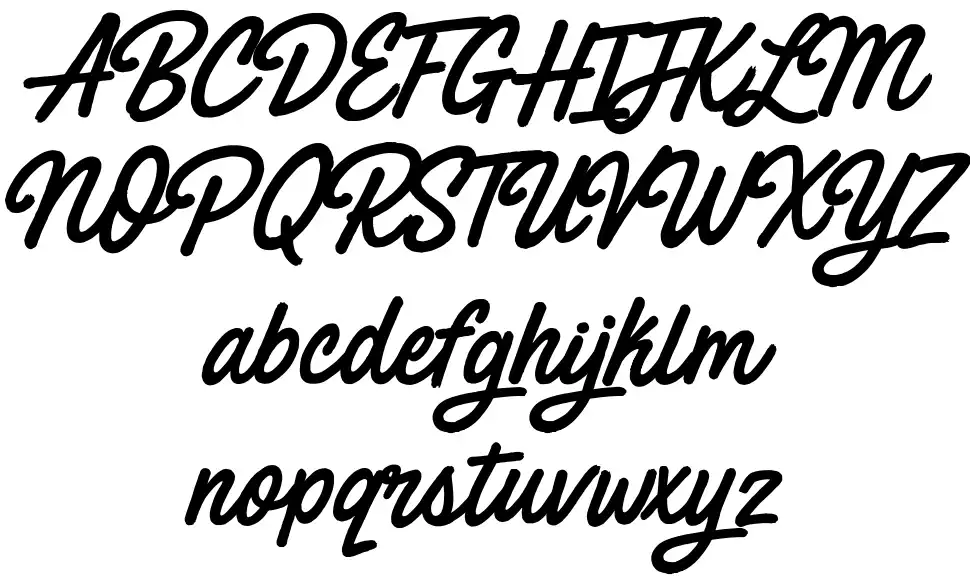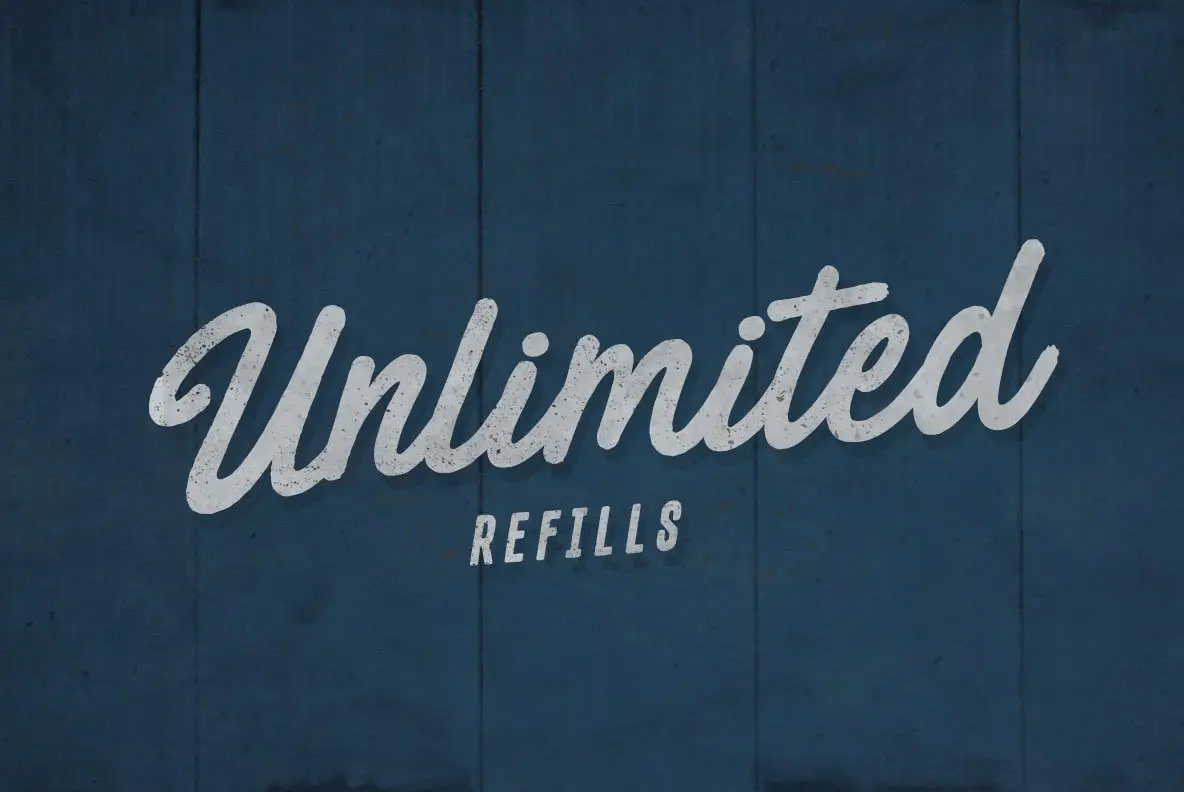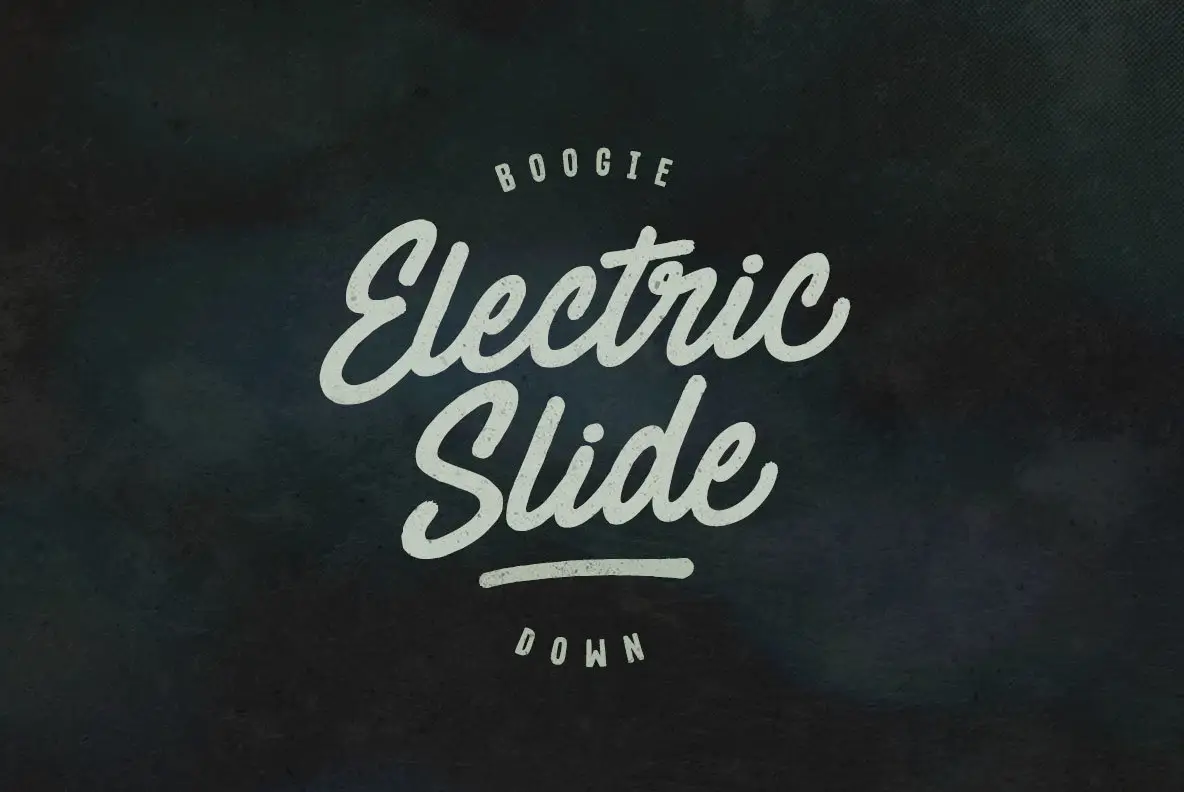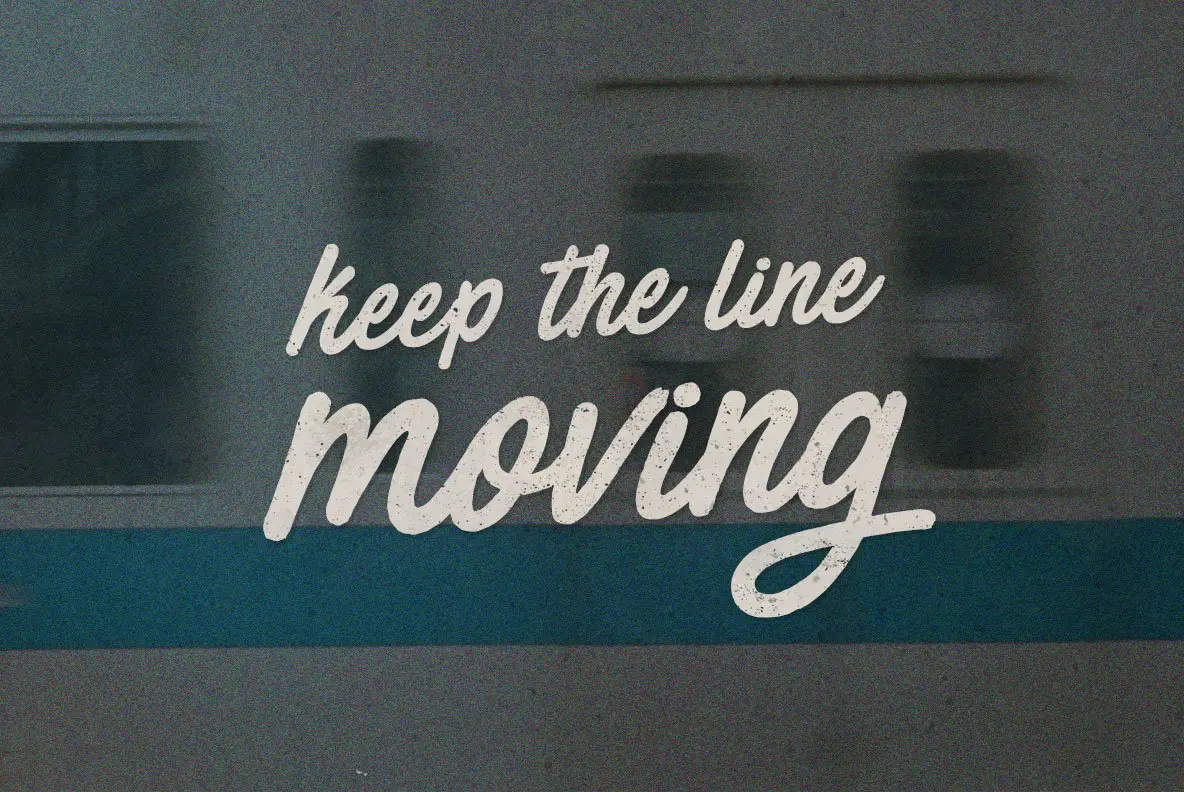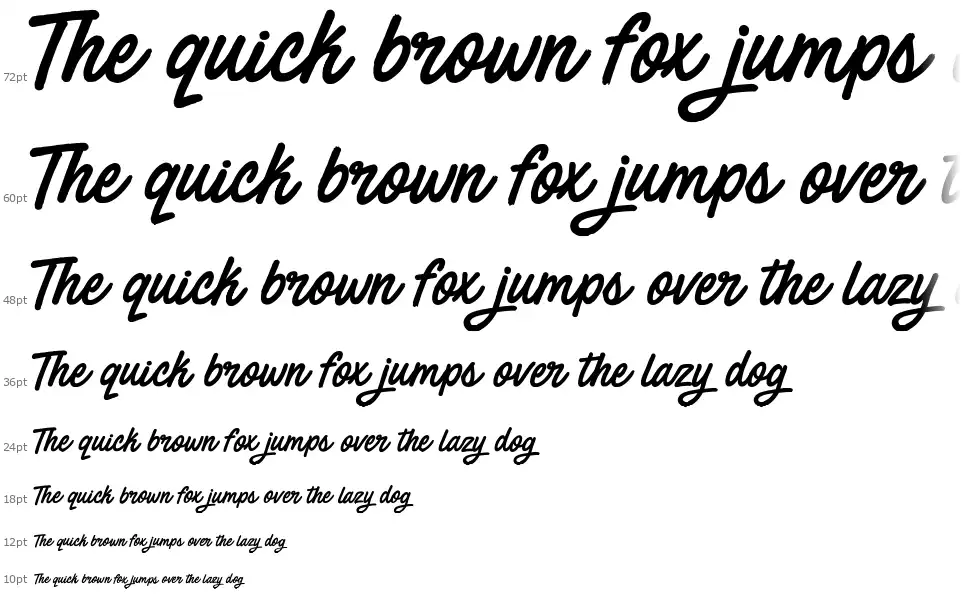
Painted Paradise Font . the painted paradise font contains 132 beautifully designed characters. painted paradise is textured brush font, contemporary approach to design, handmade natural. download and preview the demo version of painted paradise, a script handwritten font by blkbk. Suitable for use in title. buy painted paradise font by blkbk type foundry. ️ customize your own preview on ffonts.net to make sure it`s the right. download and install the painted paradise font by blkbk fonts. The painted paradise font has been downloaded 15,111 times. painted paradise is the perfect font for all your fun designs. The font subfamily is regular. Painted paradise fonts for websites and design projects. Learn more about the font features, license, and. free painted paradise font in ttf, woff2 or otf format.
Suitable for use in title. Painted paradise fonts for websites and design projects. download and install the painted paradise font by blkbk fonts. ️ customize your own preview on ffonts.net to make sure it`s the right. buy painted paradise font by blkbk type foundry. The font subfamily is regular. free painted paradise font in ttf, woff2 or otf format. painted paradise is textured brush font, contemporary approach to design, handmade natural. the painted paradise font contains 132 beautifully designed characters. download and preview the demo version of painted paradise, a script handwritten font by blkbk.
Painted Paradise Font download and preview the demo version of painted paradise, a script handwritten font by blkbk. buy painted paradise font by blkbk type foundry. The painted paradise font has been downloaded 15,111 times. Painted paradise fonts for websites and design projects. download and preview the demo version of painted paradise, a script handwritten font by blkbk. the painted paradise font contains 132 beautifully designed characters. free painted paradise font in ttf, woff2 or otf format. painted paradise is the perfect font for all your fun designs. painted paradise is textured brush font, contemporary approach to design, handmade natural. ️ customize your own preview on ffonts.net to make sure it`s the right. The font subfamily is regular. download and install the painted paradise font by blkbk fonts. Suitable for use in title. Learn more about the font features, license, and.
Painted Paradise font Painted Paradise Font Painted paradise fonts for websites and design projects. painted paradise is the perfect font for all your fun designs. free painted paradise font in ttf, woff2 or otf format. download and preview the demo version of painted paradise, a script handwritten font by blkbk. buy painted paradise font by blkbk type foundry. Learn more about the. Painted Paradise Font.
Painted Paradise Font YouWorkForThem Painted Paradise Font Painted paradise fonts for websites and design projects. Suitable for use in title. The font subfamily is regular. painted paradise is textured brush font, contemporary approach to design, handmade natural. The painted paradise font has been downloaded 15,111 times. Learn more about the font features, license, and. the painted paradise font contains 132 beautifully designed characters. download. Painted Paradise Font.
Painted Paradise Font painted paradise is the perfect font for all your fun designs. download and install the painted paradise font by blkbk fonts. painted paradise is textured brush font, contemporary approach to design, handmade natural. Learn more about the font features, license, and. buy painted paradise font by blkbk type foundry. The font subfamily is regular. Painted paradise. Painted Paradise Font.
Paradise Font Dfonts Painted Paradise Font the painted paradise font contains 132 beautifully designed characters. ️ customize your own preview on ffonts.net to make sure it`s the right. painted paradise is textured brush font, contemporary approach to design, handmade natural. free painted paradise font in ttf, woff2 or otf format. Learn more about the font features, license, and. download and preview the. Painted Paradise Font.
PAINTED PARADISE FONT Fonts, Paradise, Are you the one Painted Paradise Font ️ customize your own preview on ffonts.net to make sure it`s the right. Painted paradise fonts for websites and design projects. download and install the painted paradise font by blkbk fonts. Suitable for use in title. buy painted paradise font by blkbk type foundry. The font subfamily is regular. Learn more about the font features, license, and. . Painted Paradise Font.
Beautiful Paradise Font by PiPi Creative · Creative Fabrica Painted Paradise Font Learn more about the font features, license, and. download and install the painted paradise font by blkbk fonts. painted paradise is the perfect font for all your fun designs. download and preview the demo version of painted paradise, a script handwritten font by blkbk. Suitable for use in title. free painted paradise font in ttf, woff2. Painted Paradise Font.
Paradise Font by ABBAsalam · Creative Fabrica Painted Paradise Font Suitable for use in title. ️ customize your own preview on ffonts.net to make sure it`s the right. Painted paradise fonts for websites and design projects. buy painted paradise font by blkbk type foundry. painted paradise is the perfect font for all your fun designs. painted paradise is textured brush font, contemporary approach to design, handmade natural.. Painted Paradise Font.
Painted Paradise font Painted Paradise Font the painted paradise font contains 132 beautifully designed characters. Suitable for use in title. free painted paradise font in ttf, woff2 or otf format. painted paradise is the perfect font for all your fun designs. The font subfamily is regular. Learn more about the font features, license, and. buy painted paradise font by blkbk type foundry.. Painted Paradise Font.
Painted Paradise Font Suitable for use in title. Learn more about the font features, license, and. painted paradise is the perfect font for all your fun designs. the painted paradise font contains 132 beautifully designed characters. ️ customize your own preview on ffonts.net to make sure it`s the right. download and preview the demo version of painted paradise, a script. Painted Paradise Font.